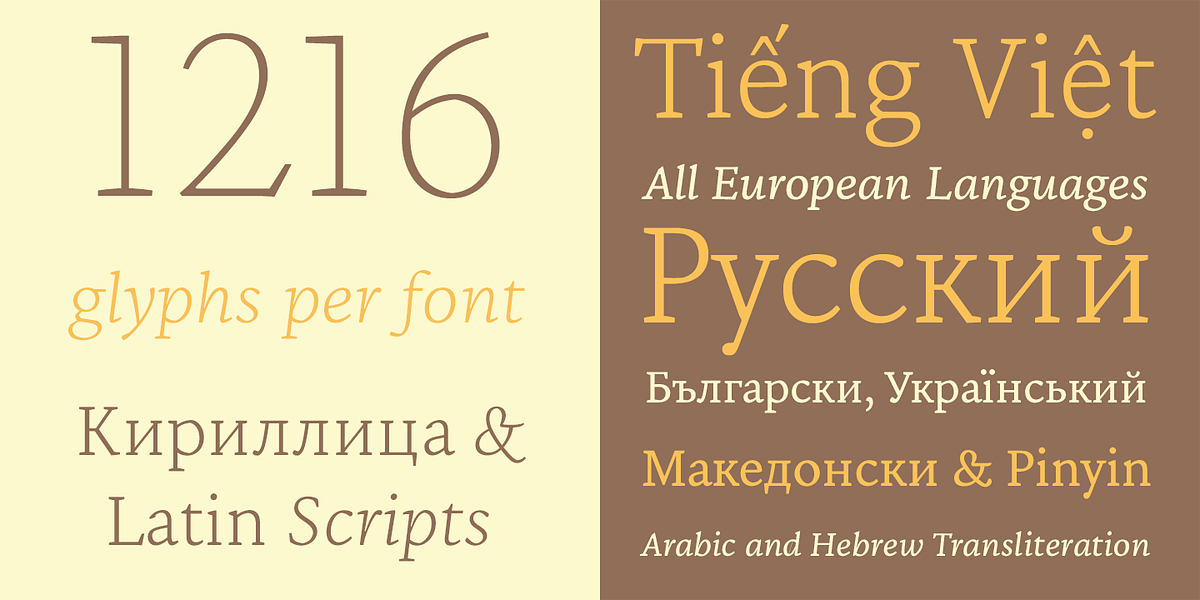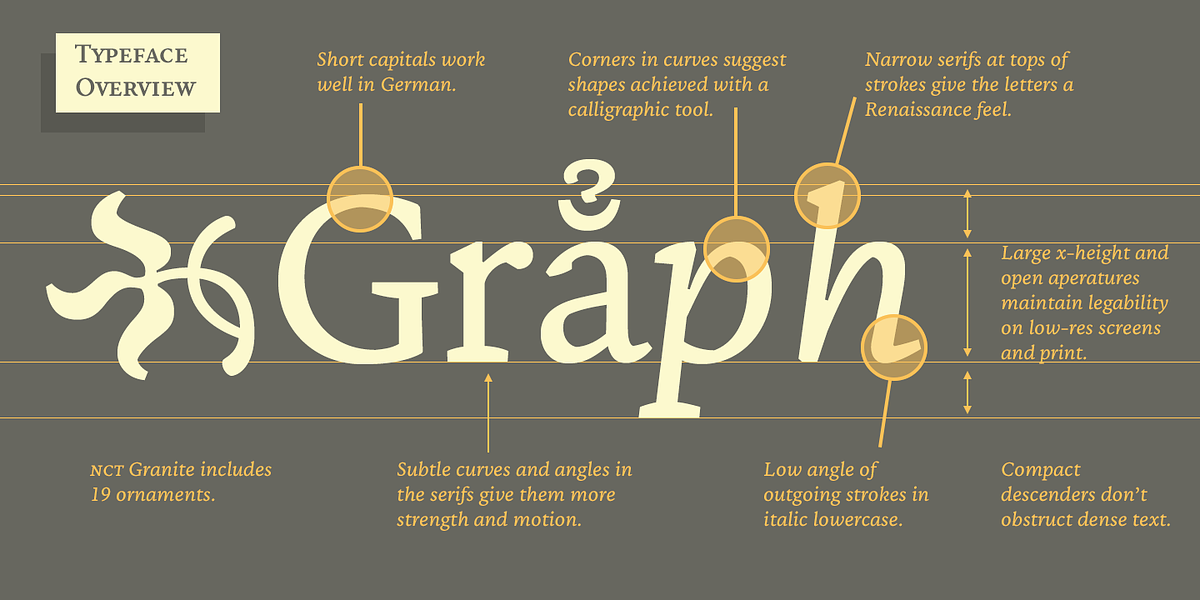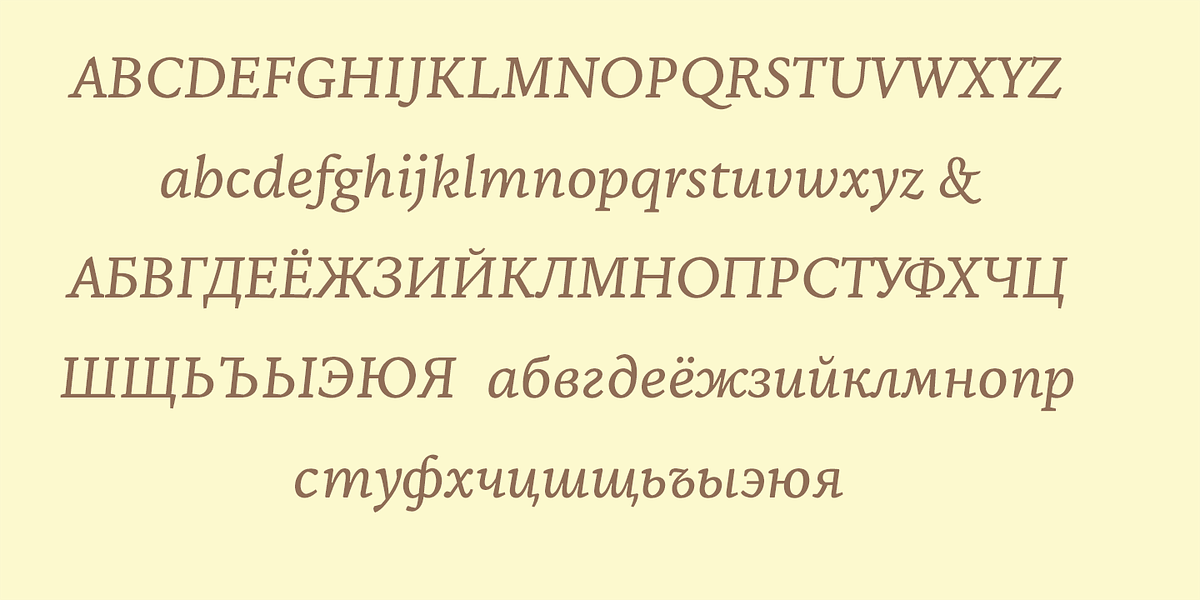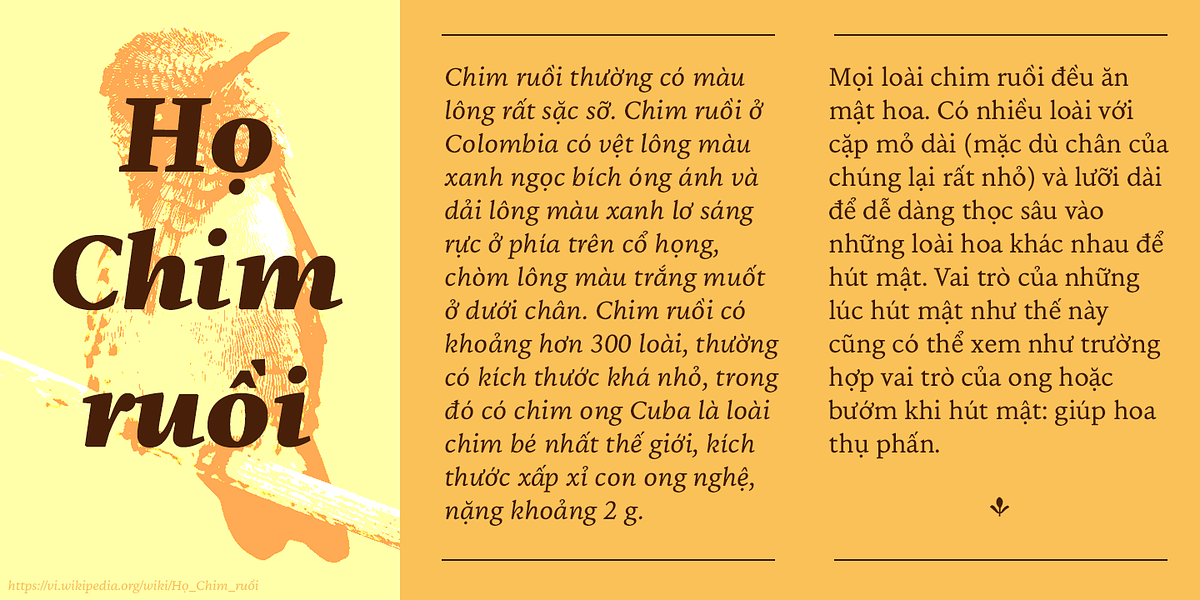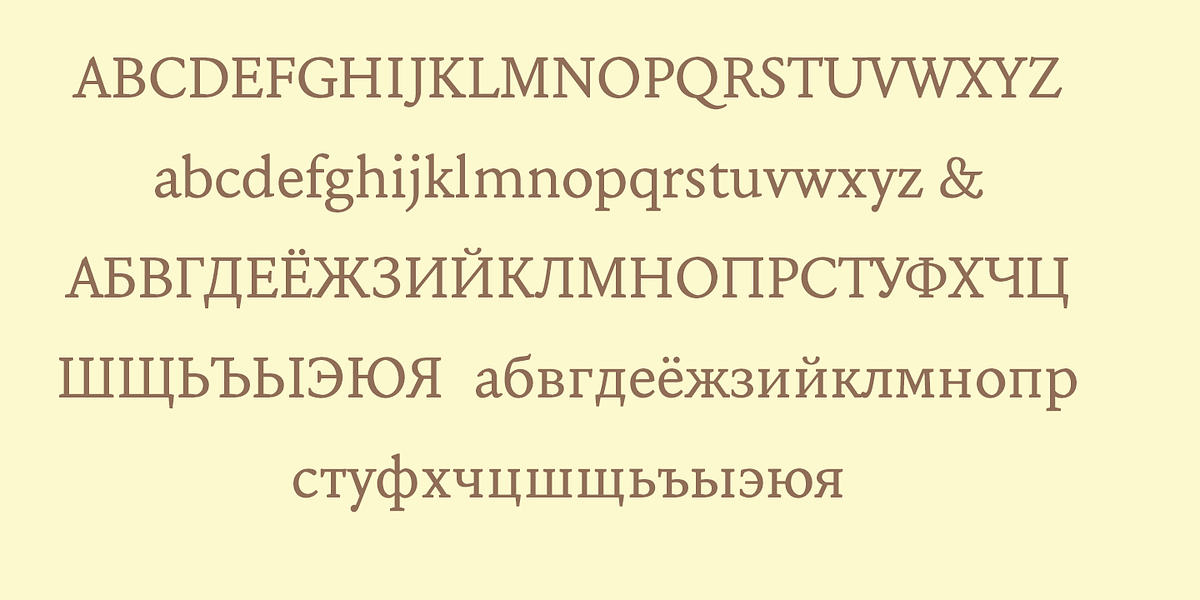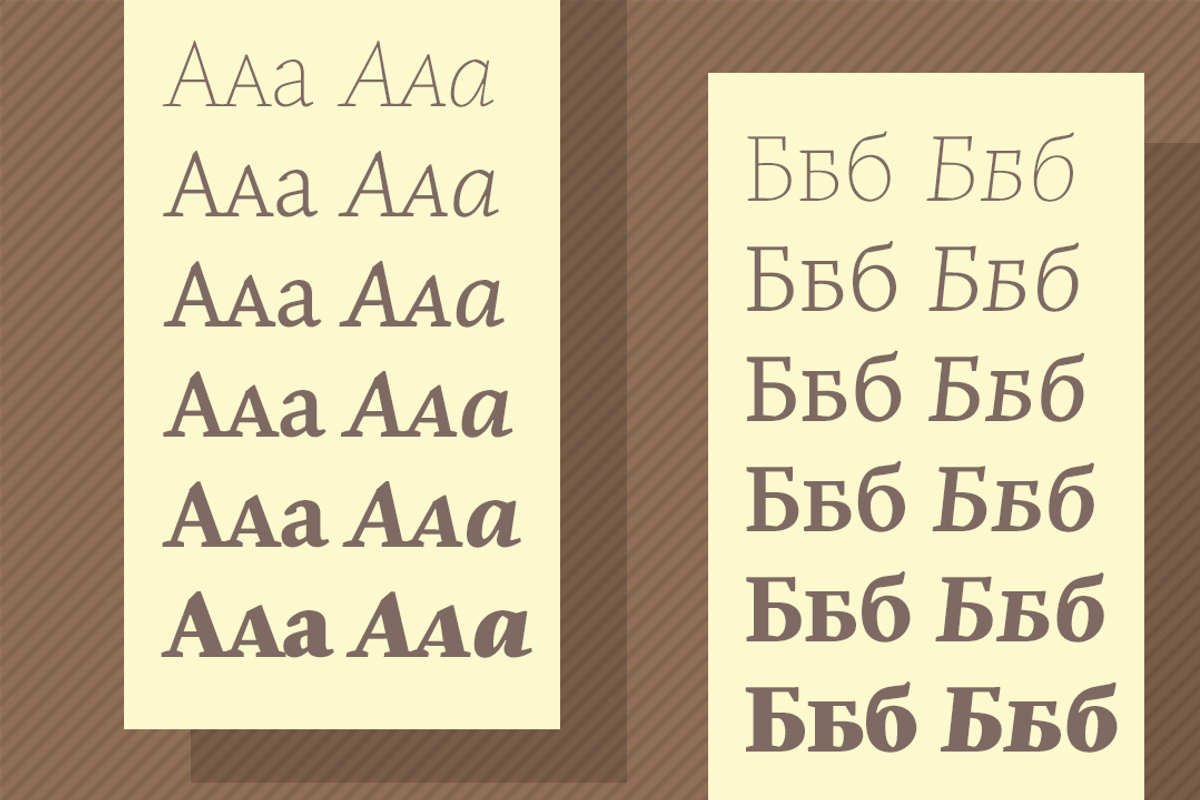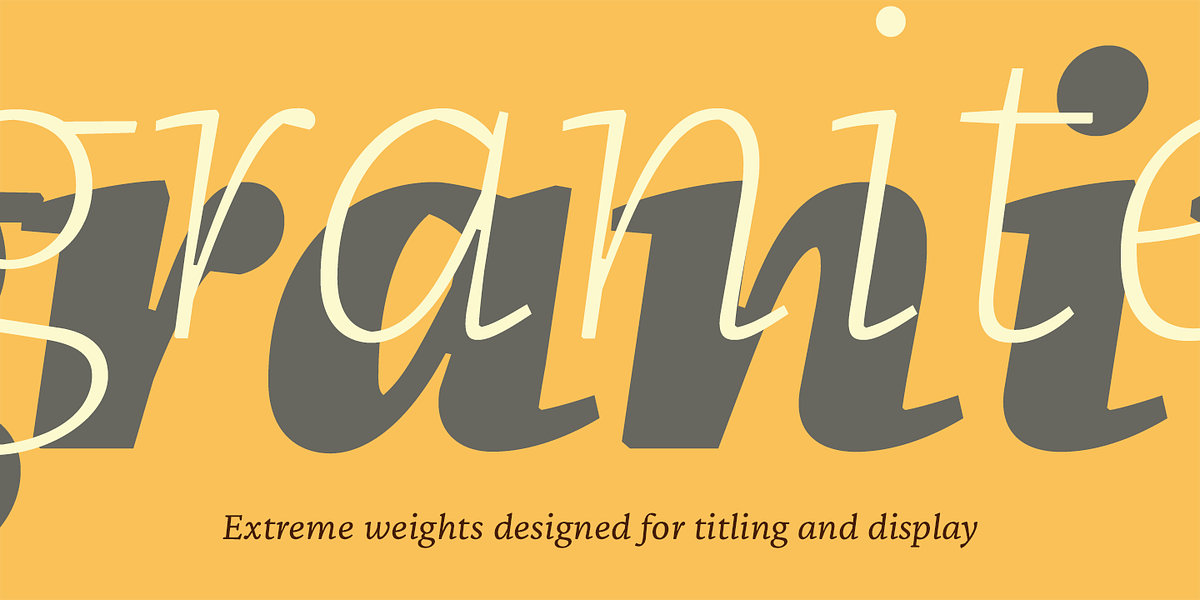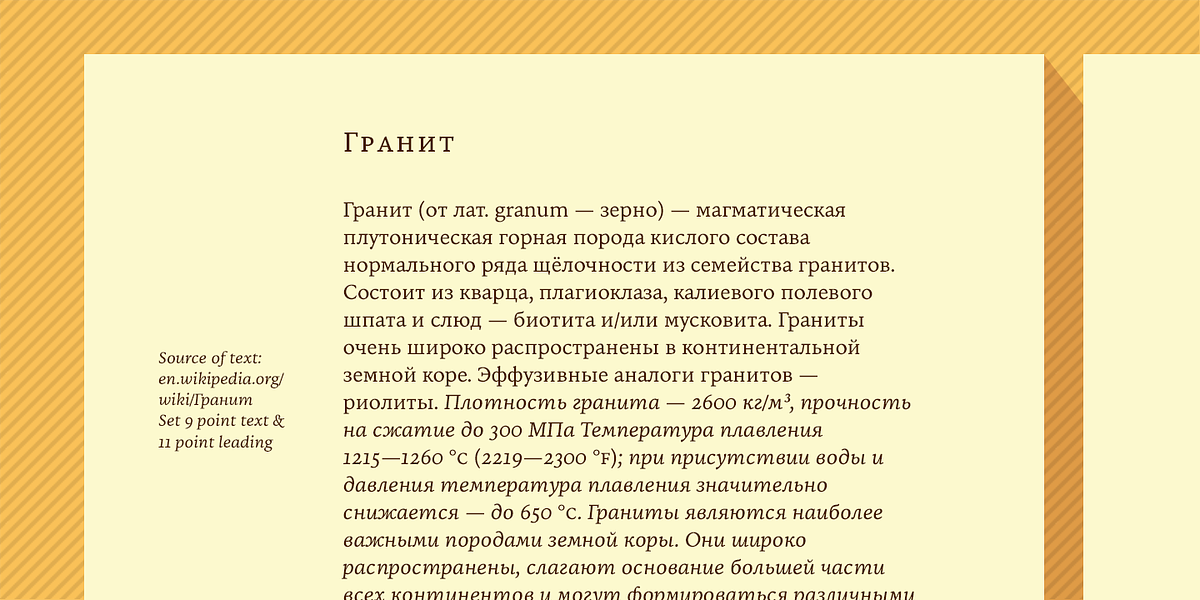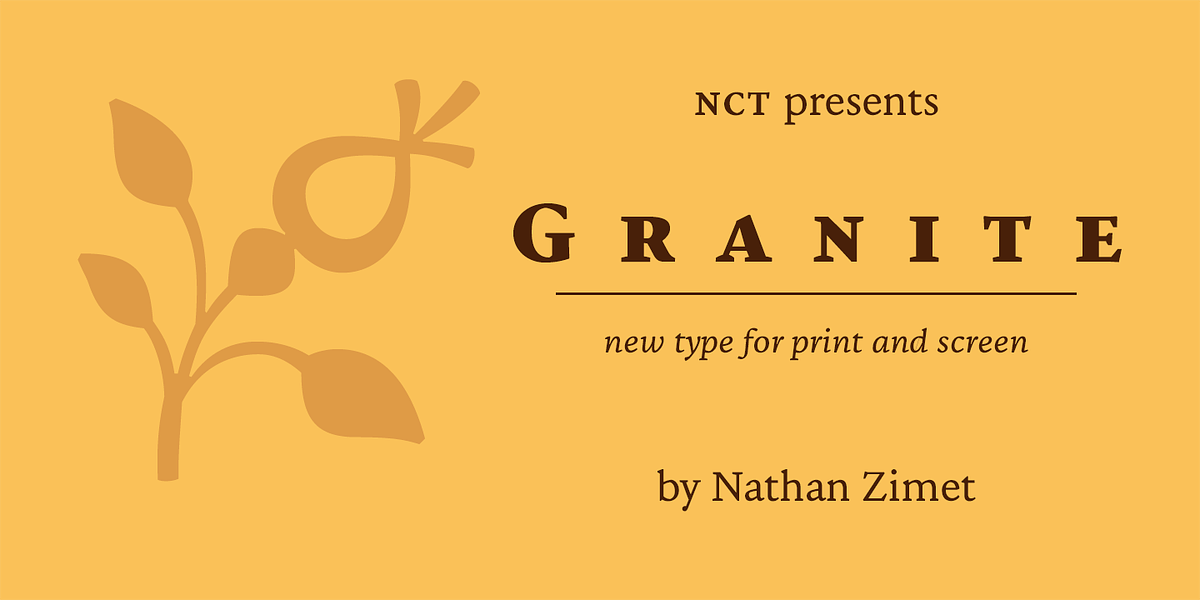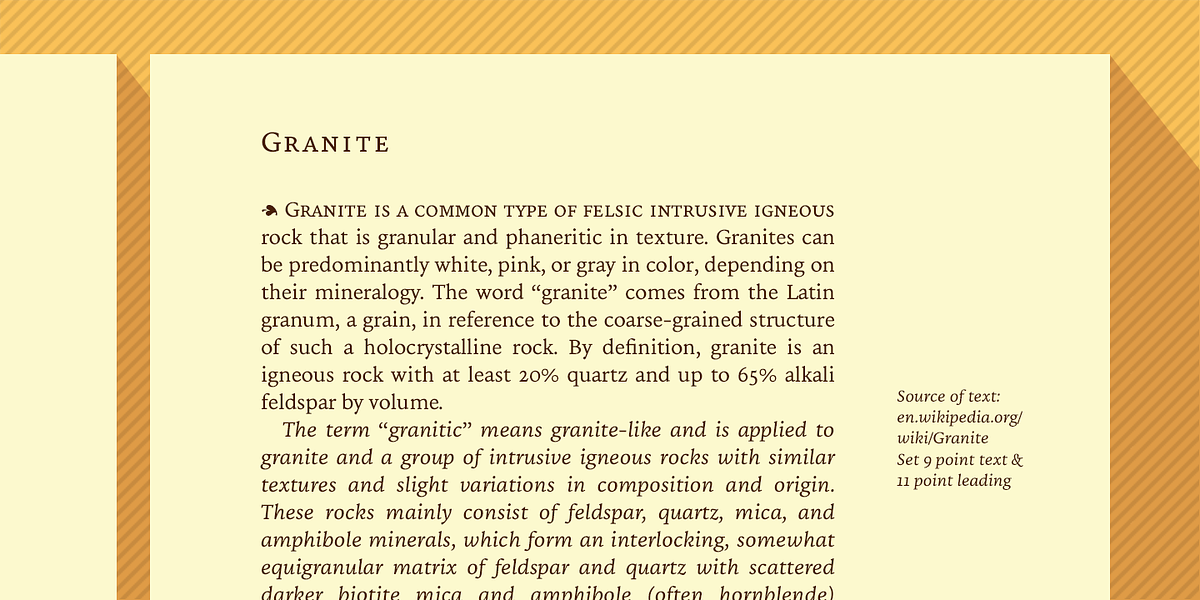
NCT Granite
NCT Granite is a transitional serif typeface designed for both screen and print. Its key feature is its wide italic, which makes it highly readable in long-form text. The font supports a broad range of languages including European languages, Vietnamese, Pinyin, Arabic transliteration, Hebrew transliteration, and multiple Cyrillic scripts. It offers various OpenType features like oldstyle numerals, tabular and proportional numerals, superscripts, subscripts, fractions, and small caps for both Latin and Cyrillic alphabets.